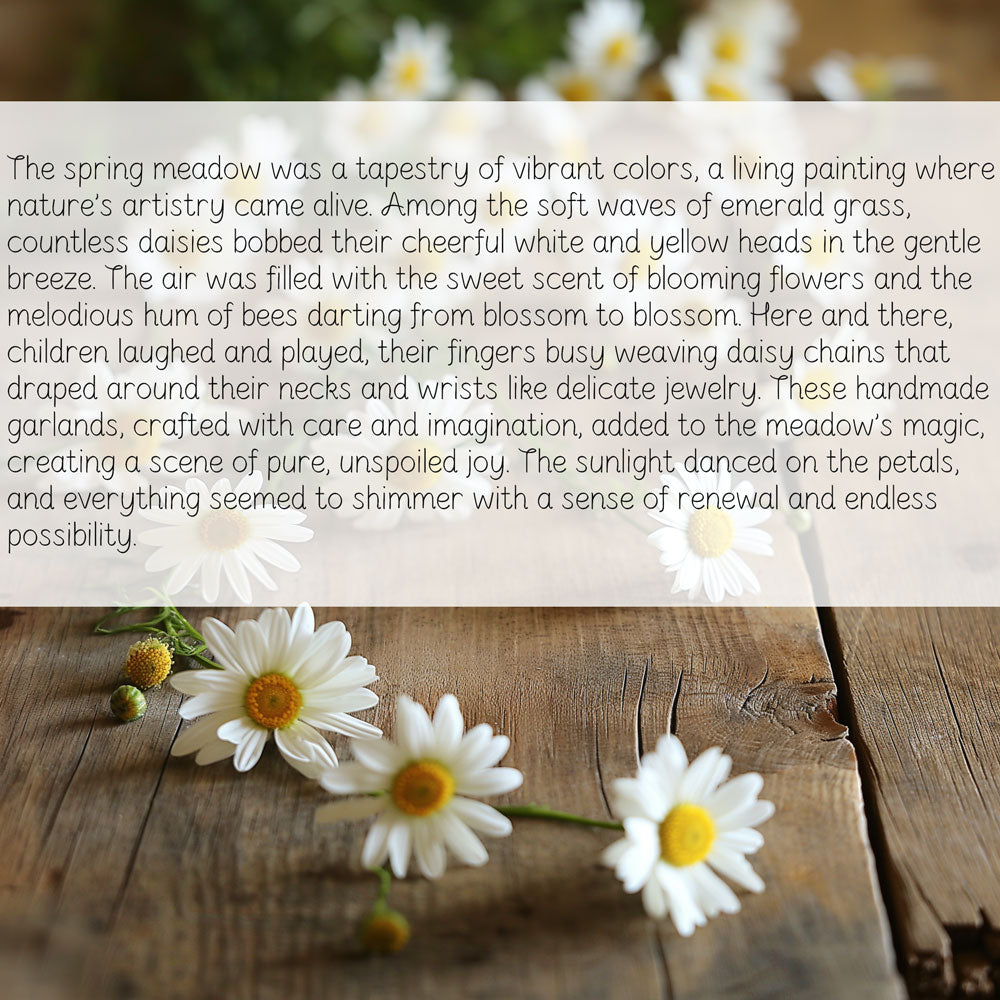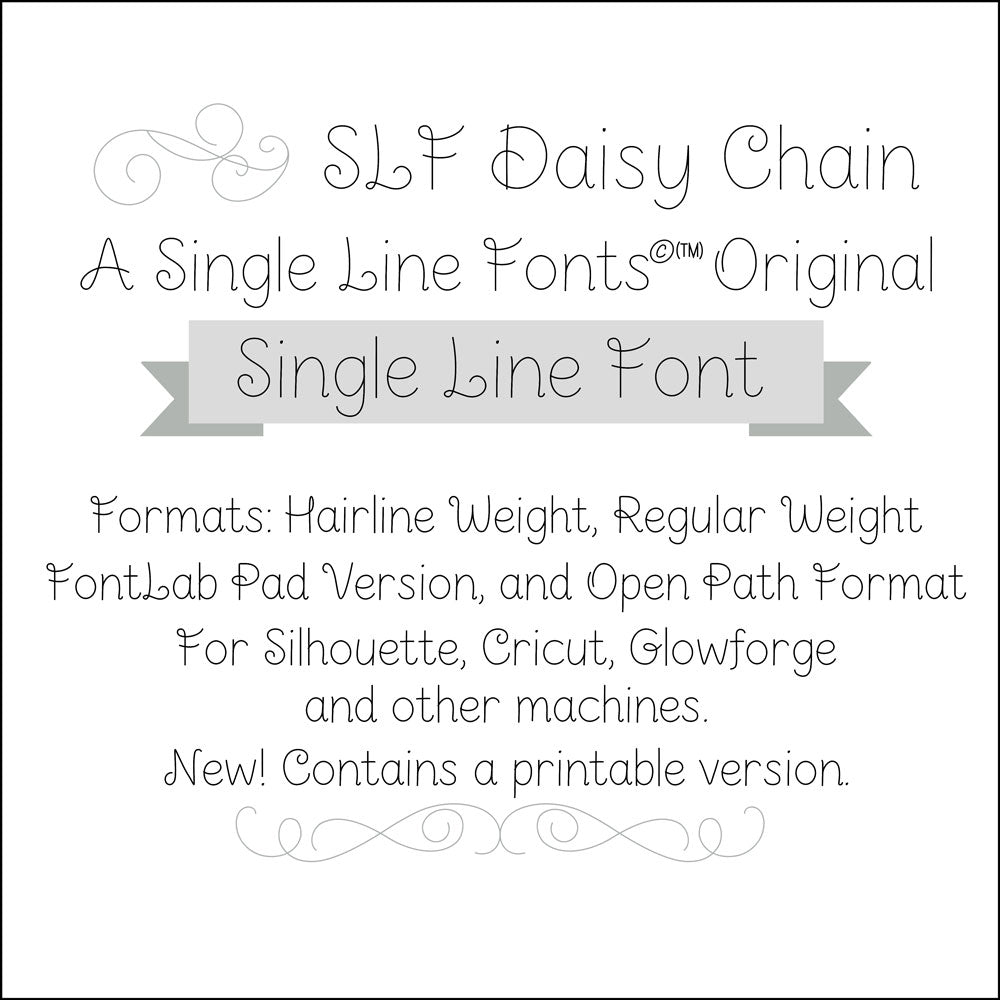
SLF Daisy Chain – Single Line Print Font for Engraving & Crafting
SLF Daisy Chain is a playful yet clean single line font with rounded, geometric letterforms that bring a cheerful yet refined look to engraving, scoring, sketch pen tools, CNC projects, and creative printing. Its approachable style works great for cards, labels, kids’ crafts, signage, and personalized designs.
This monoline font includes a full character set with uppercase and lowercase letters, numbers, punctuation, and accented characters for multilingual support.